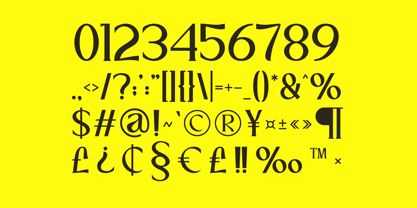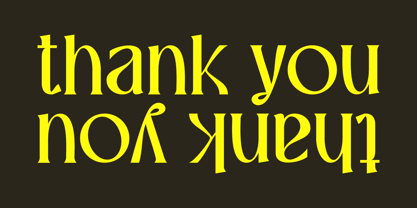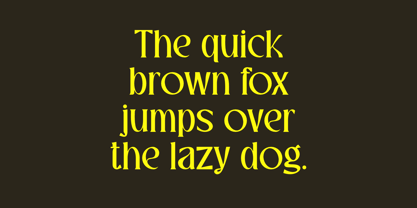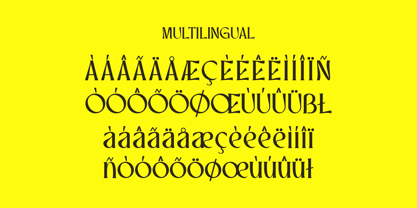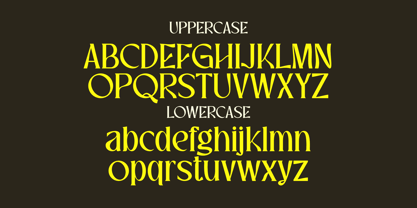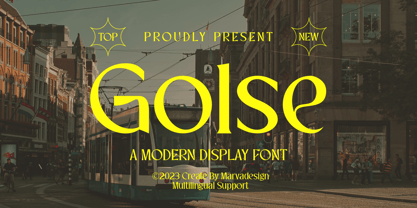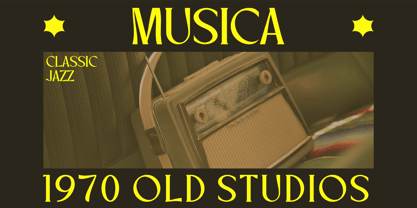
Golse
by Marvadesign
The Golse Font Family was designed by Febrie Setiawan and published by Marvadesign. Golse contains 1 styles. More about this family
Introducing Golse is a modern display font that exudes elegance and sophistication through its unique letterforms and distinctive character shapes. It combines classic typography elements with contemporary design, making it highly versatile for a range of creative applications. The font features smooth curves, subtle serifs, and an artistic balance between thick and thin strokes, which contribute to its striking visual appeal. Its uppercase and lowercase letters are designed with a sense of fluidity and harmony, ensuring readability while maintaining a strong personality. Golse is well-suited for branding, editorial designs, posters, and vintage-inspired graphics, adding a touch of refinement and timeless charm to any project. Its multilingual support further enhances its usability, making it a valuable asset for designers worldwide.
Designers: Febrie Setiawan
Foundry: Marvadesign
Golse